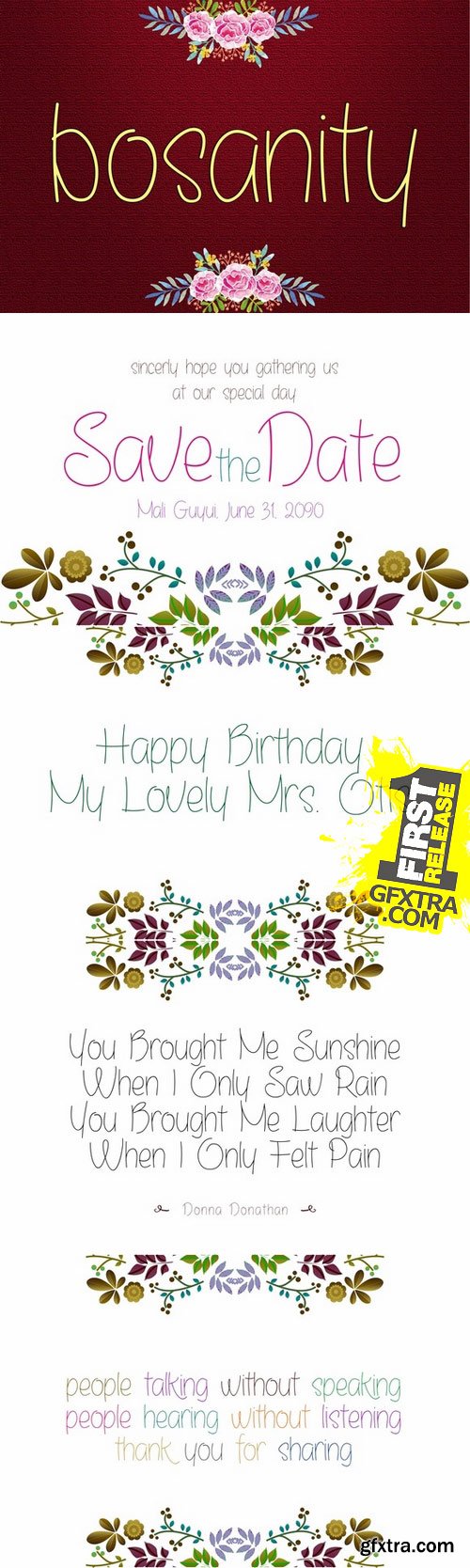
Bosanity Light is a tighly line style, a slower pen drawn has applied to this typeface, little pressure and modern character adapted brought to you as a completeness of creating world classes design. this typeface settled in common stardard glyphs. Uppercases and lowercases Numeral Punctuations File Included: Bosanity.otf On Update Character Weight and Italic Swashes and Alternates Initial and Terminal Letter Extend Language the price will differ after update .... so grab it today!!! Help supported:  Thanks for purchasing and Happy Design!!!